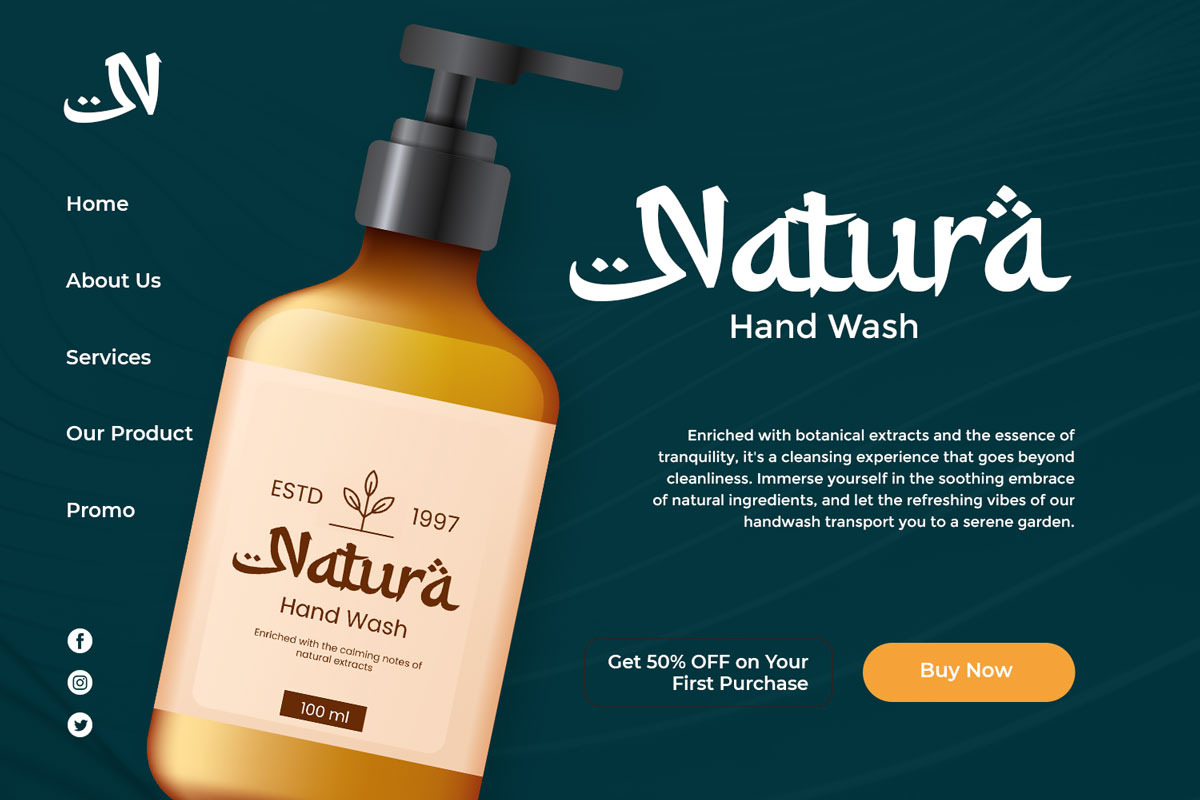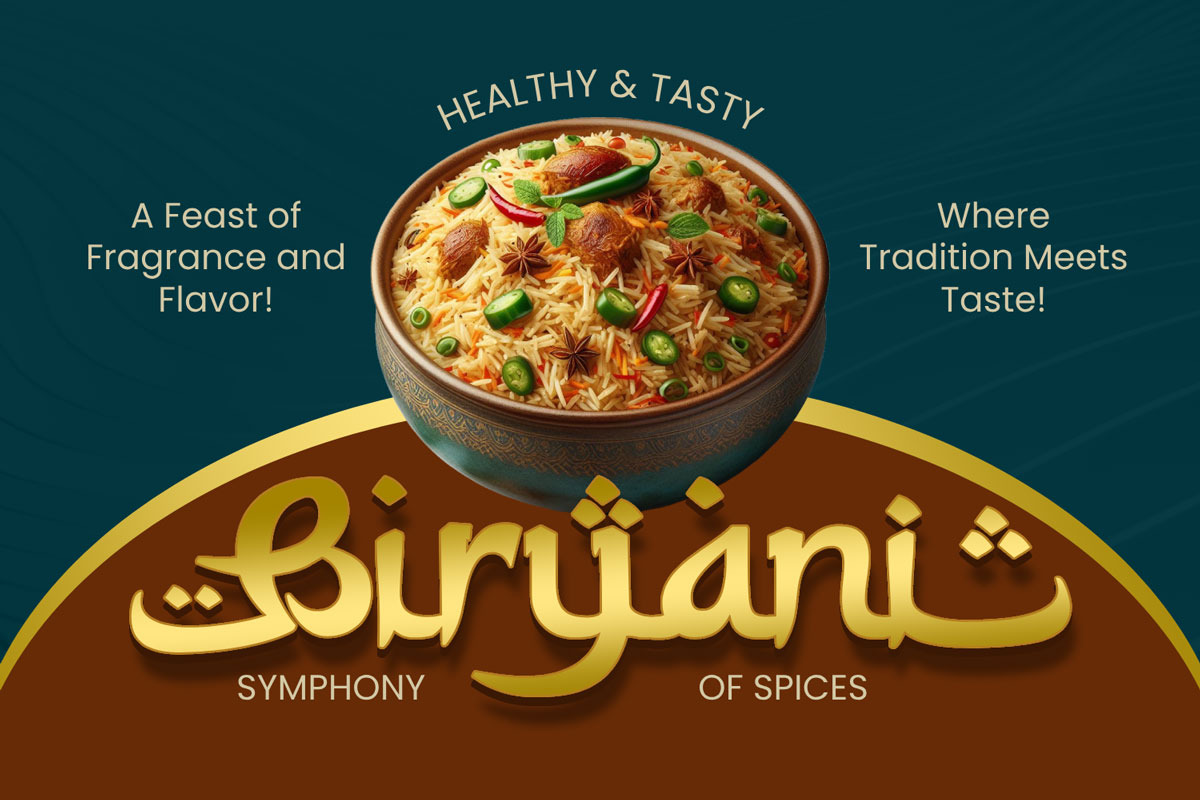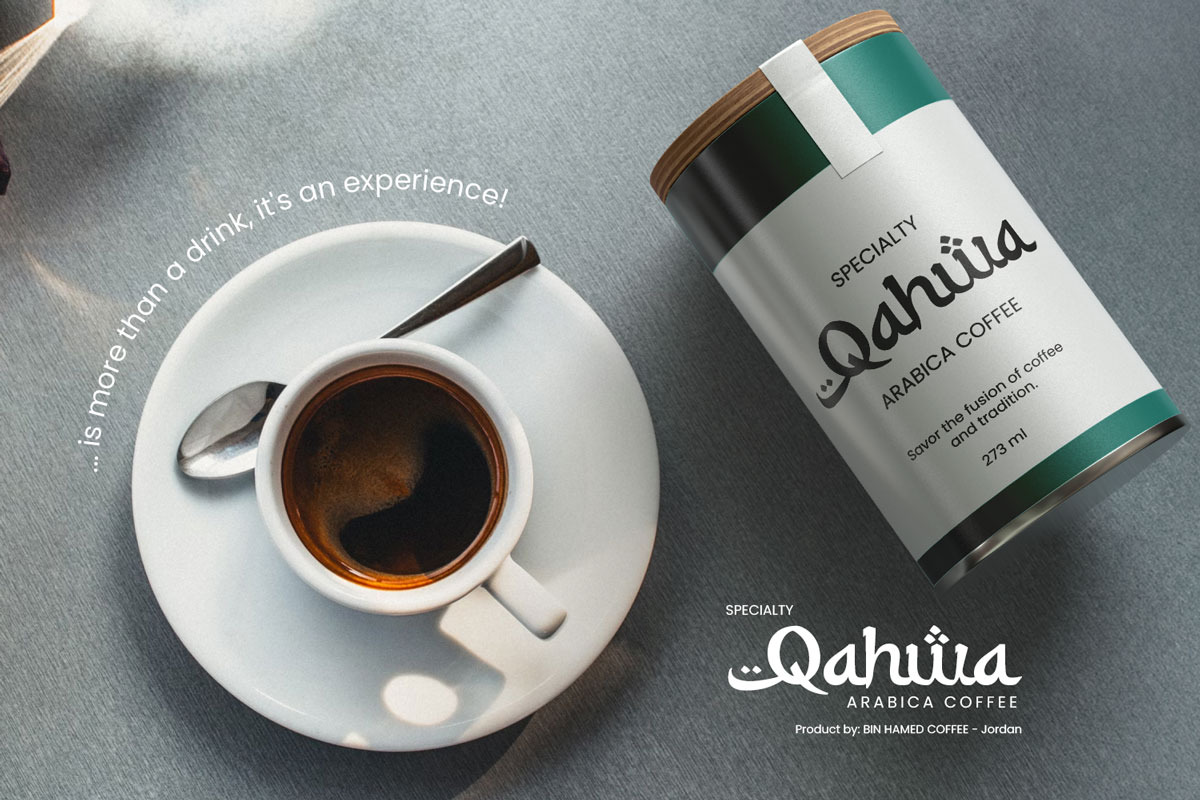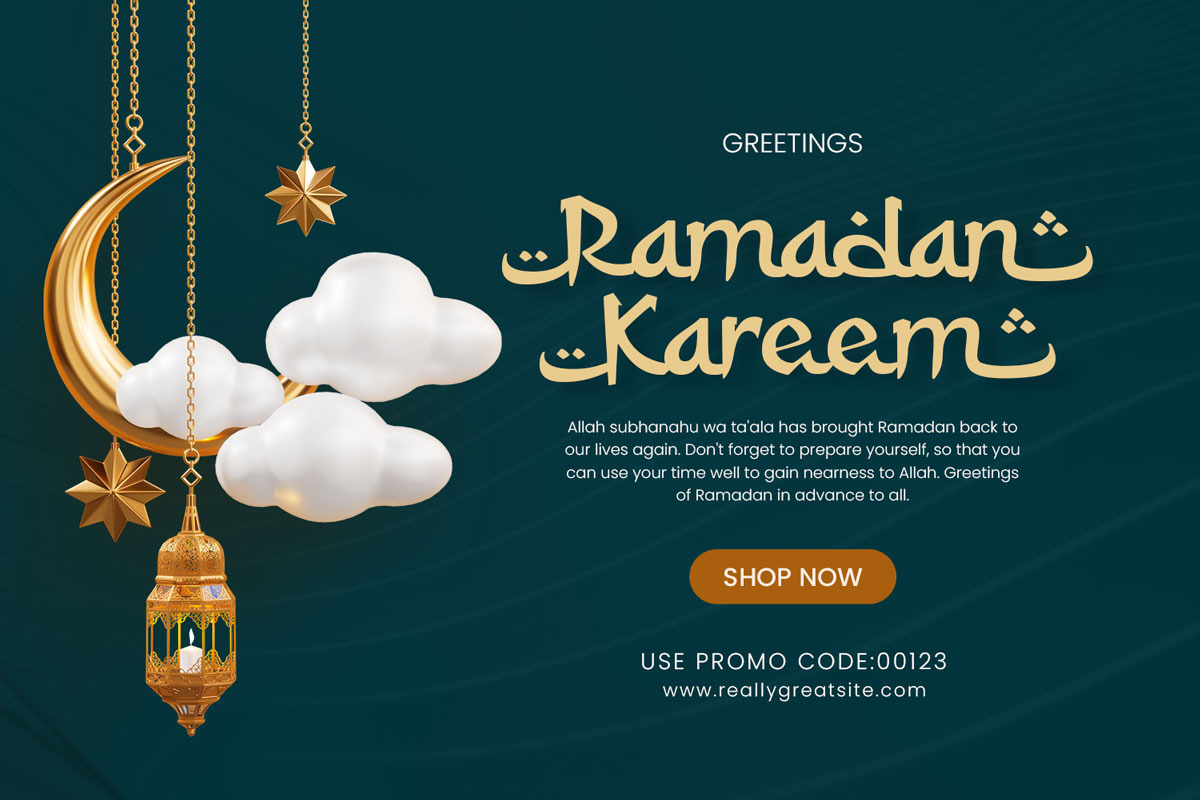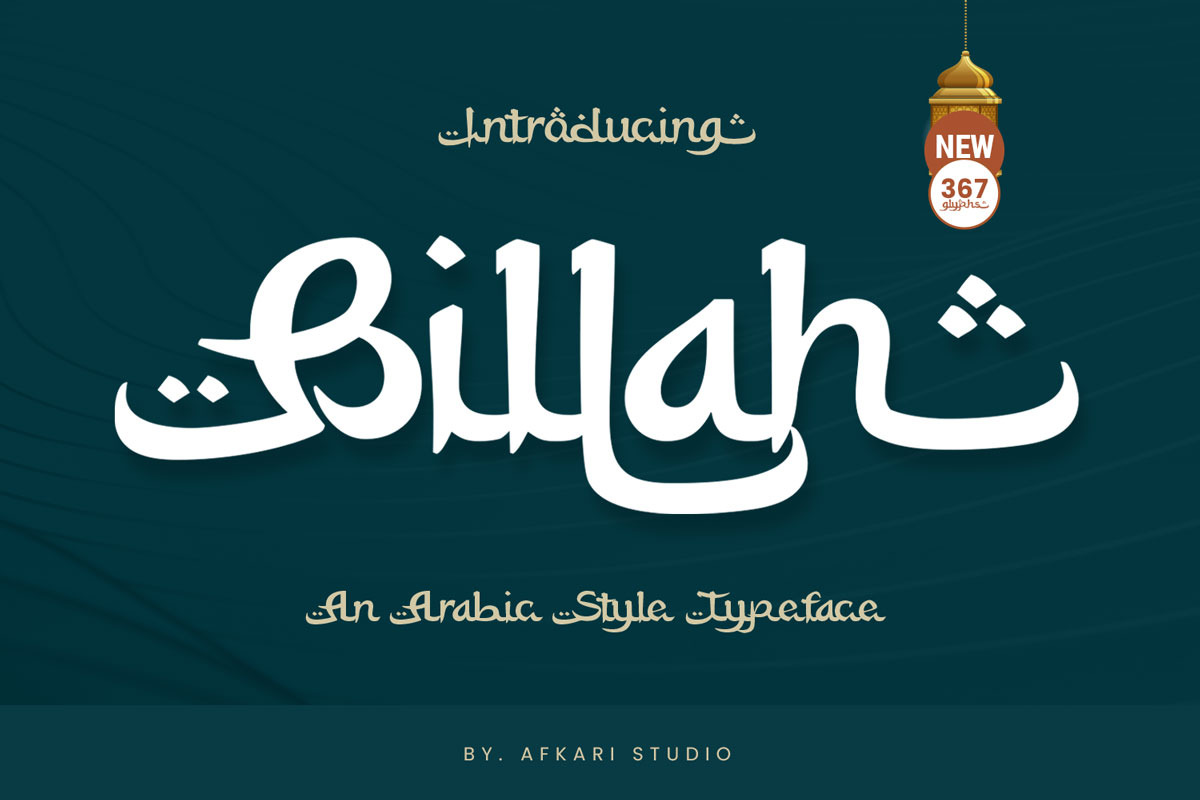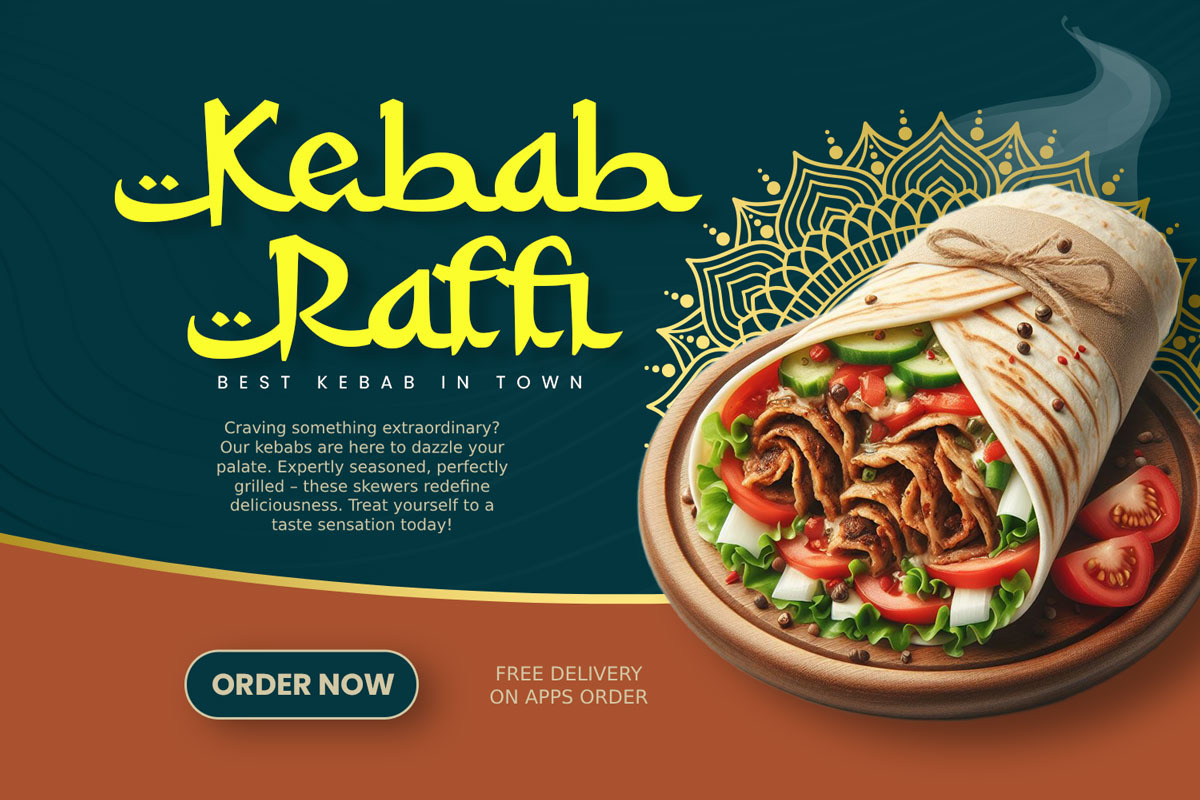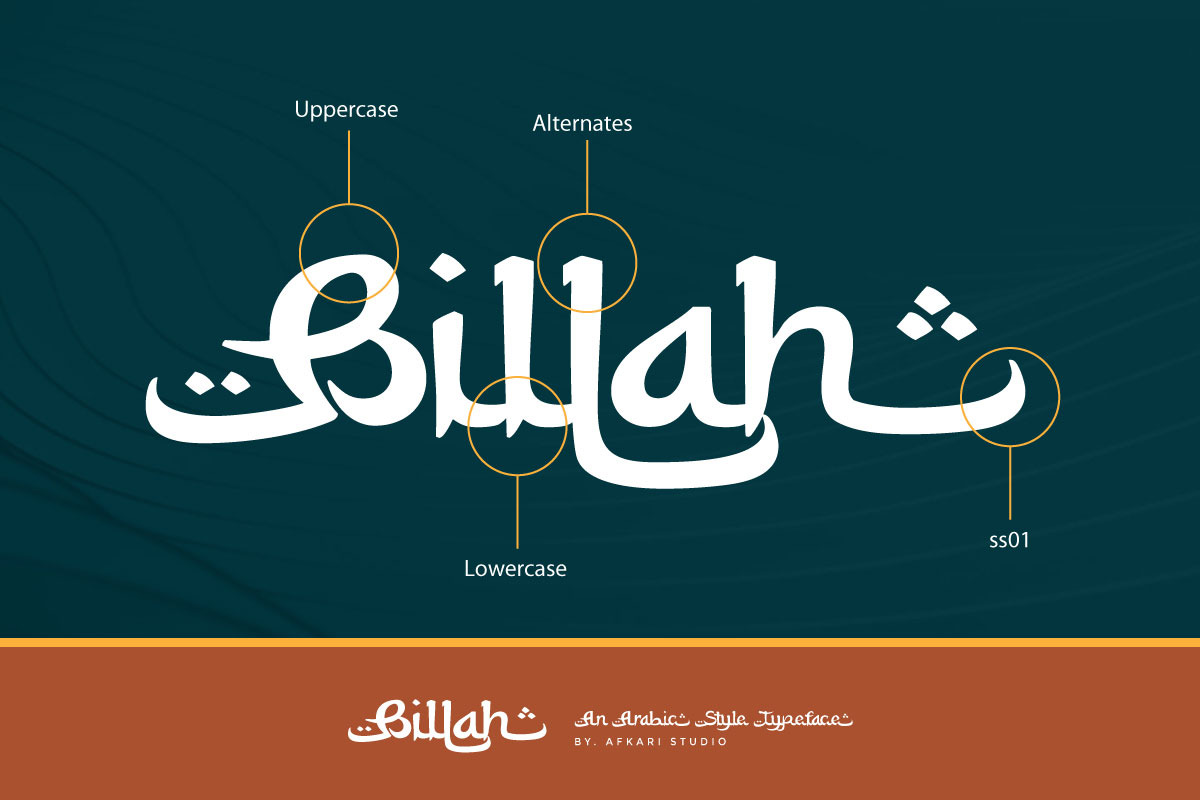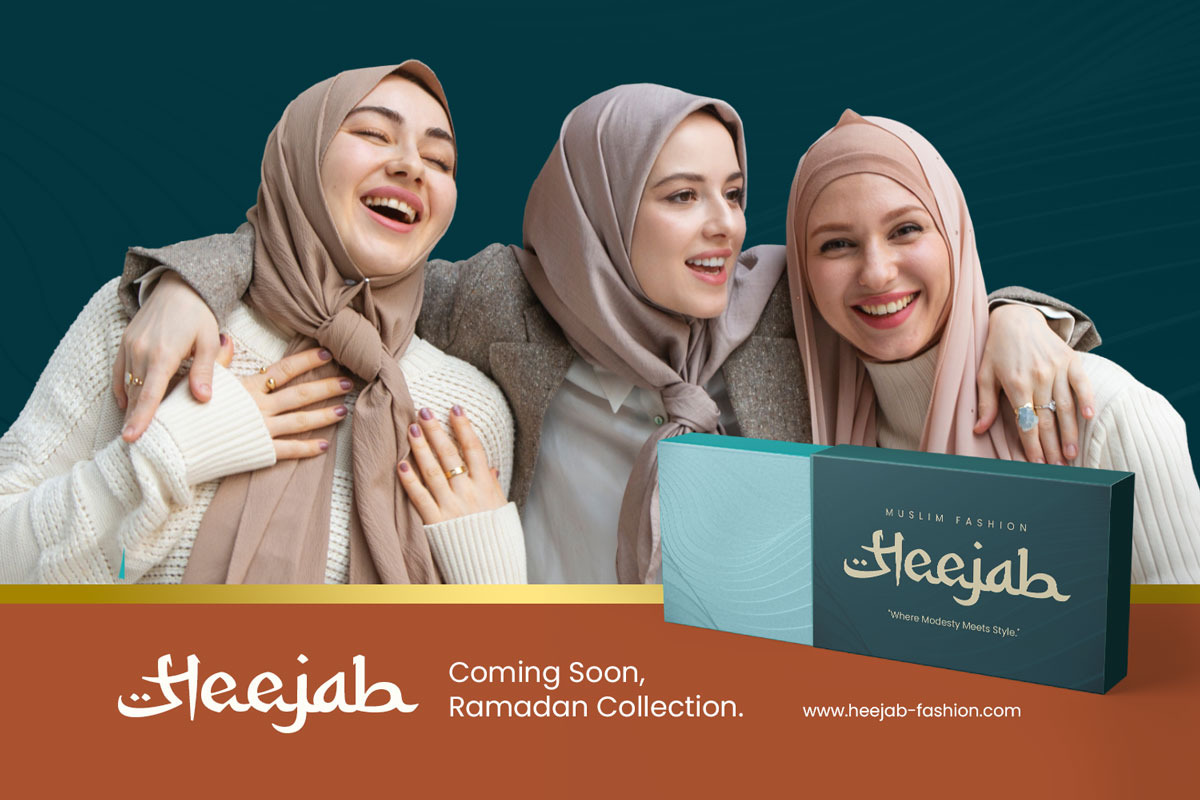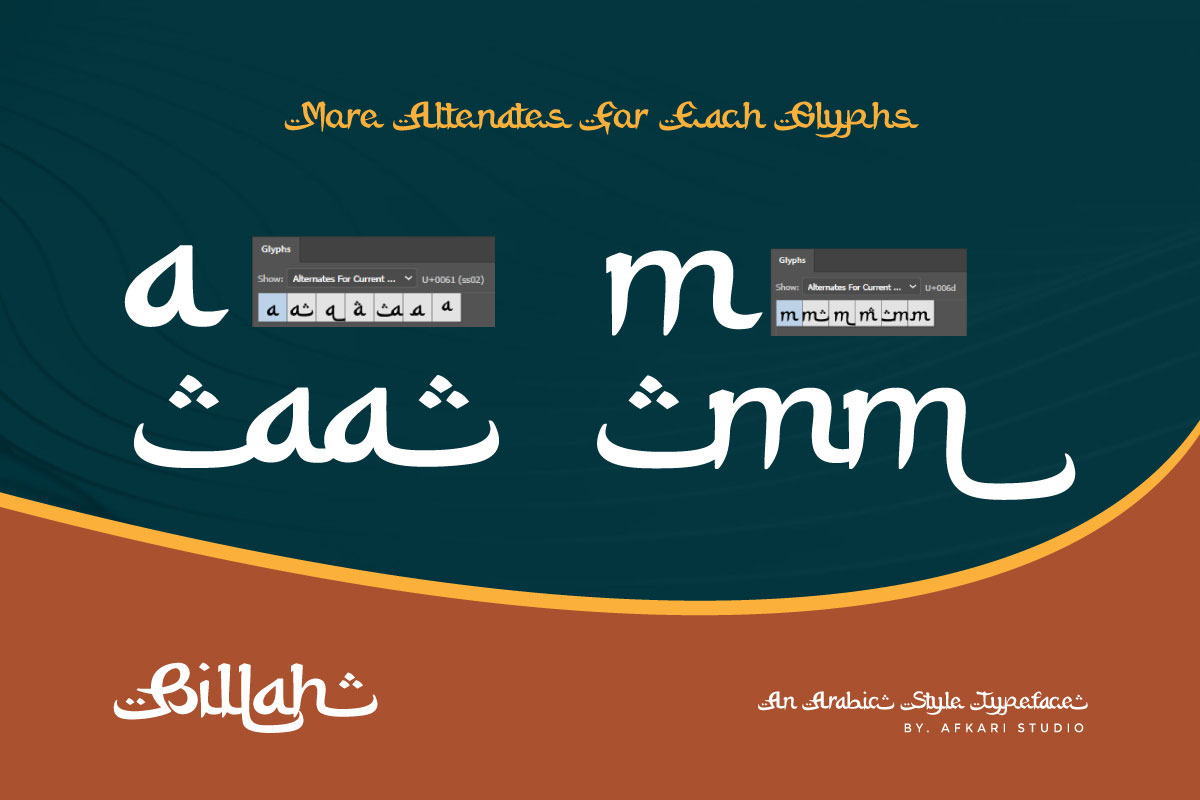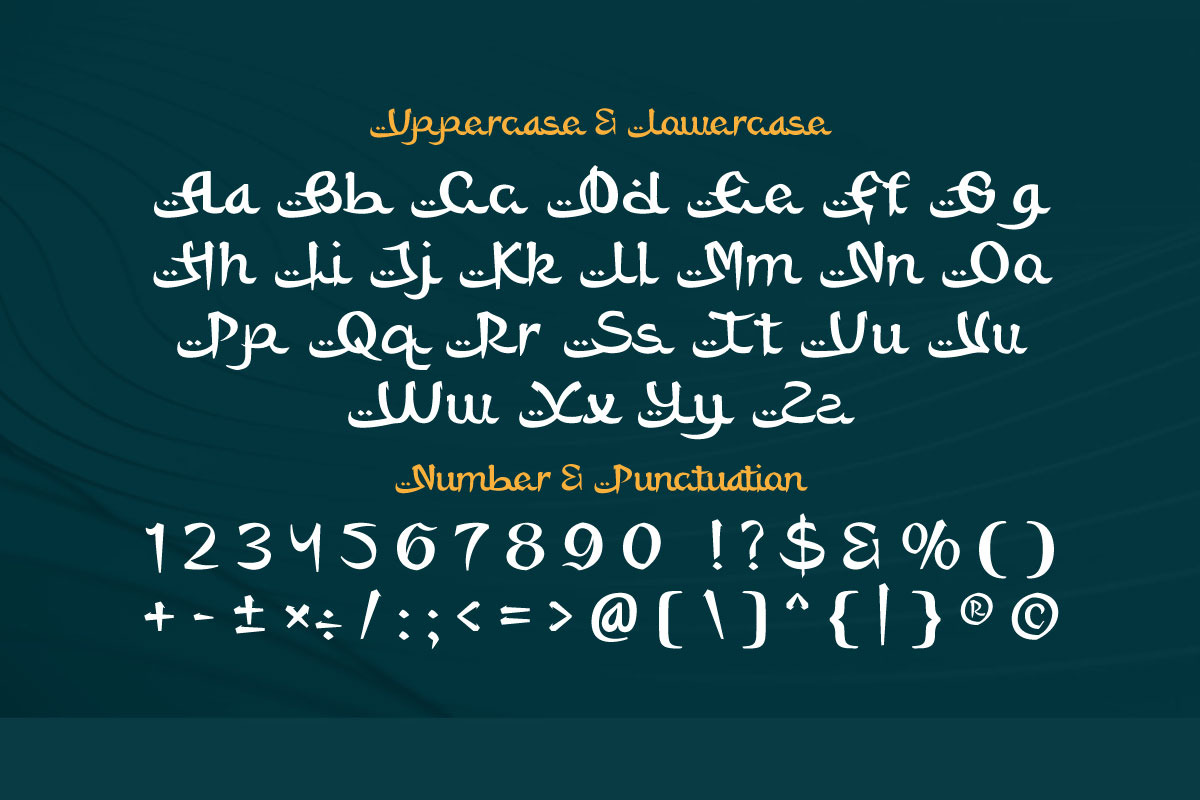
Billah - An Arabic Style Typeface
Introducing Billah, a captivating Arabic-style typeface that pays homage to the rich cultural heritage of Arabic calligraphy. Immerse your designs in the elegance of Billah, meticulously crafted to infuse every text with an authentic Arabic feel. This exquisite font is more than just a typeface; it's a design journey that effortlessly brings the essence of Arabic style to your creative projects.
Billah is thoughtfully designed with Latin characters, ensuring international readability and allowing your message to transcend linguistic barriers. Whether you're working on branding, product packaging, quotes, flyers, posters, logotypes, apparel, or any project that requires a touch of Arabic sophistication, Billah is the ideal choice.
- Uppercase, lowercase, numbers, and punctuation
- Special alternates and ligatures for added visual richness
- Multilingual support, accommodating characters like ä, ö, ü, Ä, Ö, Ü, ß, ¿, and ¡
Billah is not just a font; it's a design companion that seamlessly blends tradition and modernity. Elevate your creative projects with Billah's unique charm, creating visually stunning results that resonate with authenticity. We hope you relish using our font, confident that it will become an indispensable asset in bringing your artistic visions to life. Enjoy the artistry of design with Billah!